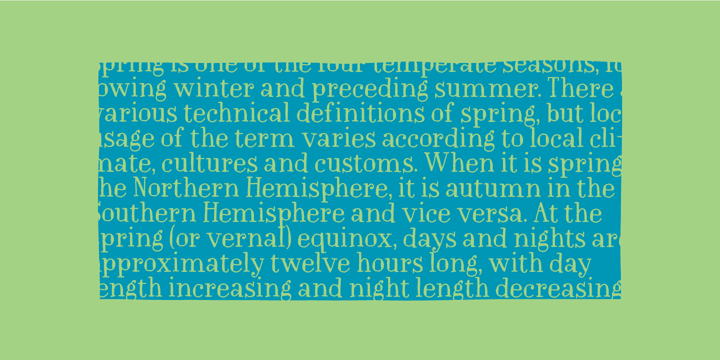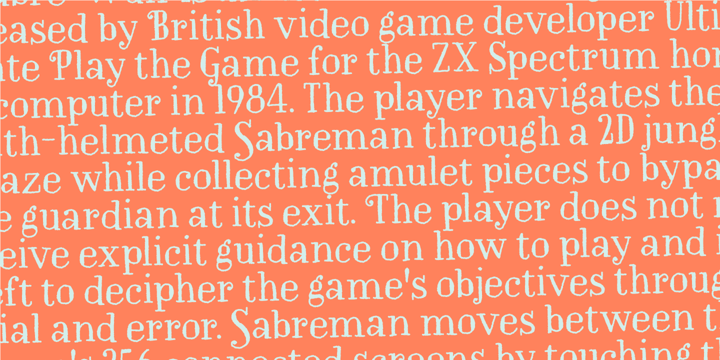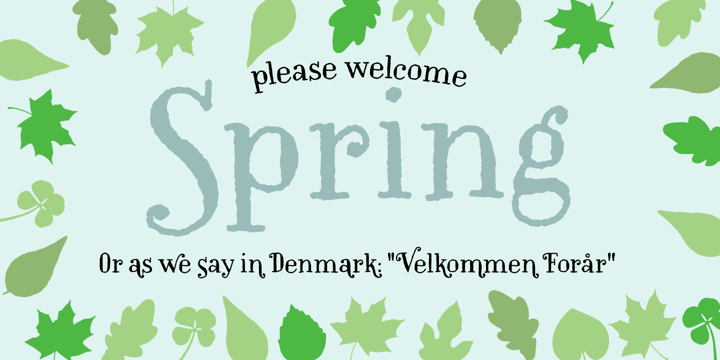
Rookie Heat Font
Based upon classic typefaces such as Bodoni, you might find Rookie Heat familiar. However, the rough outline and handmade look and feel makes it perfect for your craft products. All in all, Rookie Heat is reflecting the beauty of decorative objects. Play around with the swashes for upper- and lowercase to make your designs stand more out.
Where Rookie Heat Font works best
Rookie Heat Font is built for size: event posters, hero headlines and billboard-style layouts.
High contrast display type like Rookie Heat Font reads instantly in thumbnails and motion graphics.
What is Rookie Heat Font good for?